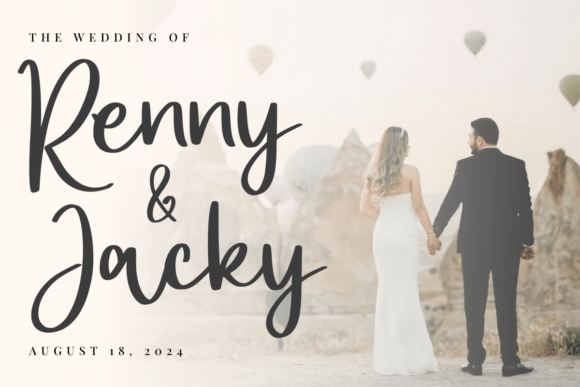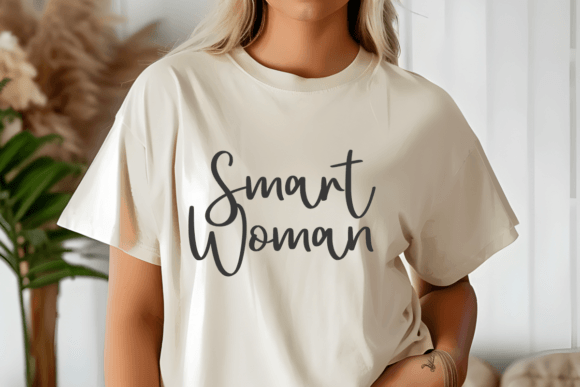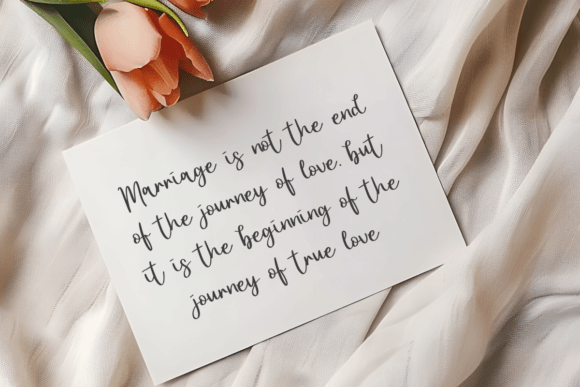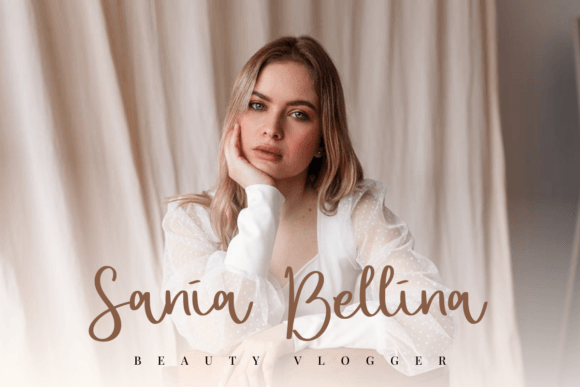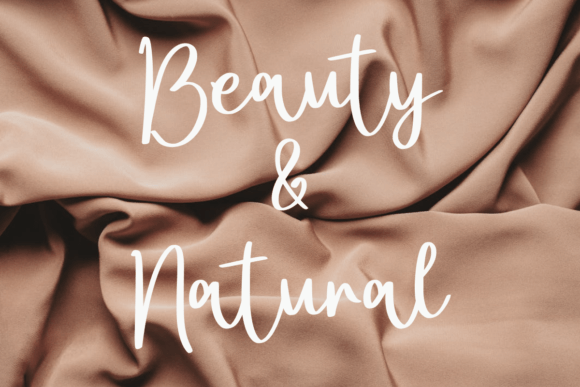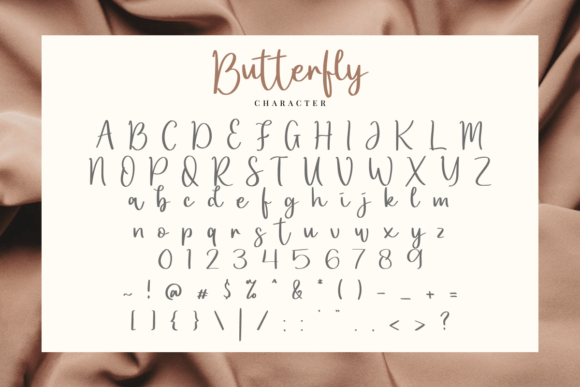
Unleashing the Beauty of Handwritten Charm
Have you ever found yourself scribbling down a heartfelt message or a special invitation, only to realize that your handwriting doesn’t quite capture the essence of the moment? That’s when the magic of typography comes to the rescue, and for many designers, the perfect solution lies in the whimsical world of handwritten fonts.
Enter the enchanting Butterfly Font, a charming script that exudes warmth and friendliness, making it the perfect companion for any design project that calls for a touch of elegance and playfulness. Whether you’re crafting wedding invitations, heartfelt cards, or simply looking to add a personal touch to your branding, the Butterfly Font is an invaluable asset for any designer seeking to convey their artistic vision with precision and charm.
Key Features of Butterfly Font
- Font Family: Butterfly Font is a unique, handwritten font that features elegant and whimsical characteristics.
- Unique Characteristics: Features a flowing, organic feel with subtle imperfections, giving it a hand-written and personal touch.
Butterfly Font Review
Overall, I think the Butterfly Font has some lovely qualities that make it a great choice for certain projects. ✨ Its flowing curves and delicate lines evoke a sense of whimsy and playfulness, perfect for children’s books, wedding invitations, or any other design that needs a touch of romance. The font’s irregularity adds a unique charm that can help break up the monotony of more traditional serif or sans-serif fonts.
One of the things that stands out about the Butterfly Font is its wide range of uses. ✨ It’s great for both display and body text, and its varying font weights make it easy to create visual hierarchies and emphasize key points. The font also works well in both print and digital formats, which is a bonus for designers who need to adapt their work across different platforms.
- ⚠️ The font’s irregularity can sometimes make it difficult to read, particularly at smaller sizes or in areas where legibility is crucial.
- ⚠️ Some characters, such as the ‘g’ and ‘q’, can be tricky to distinguish from one another due to their similar shapes.
Overall, I think the Butterfly Font is a lovely addition to any designer’s toolkit, but it’s not without its limitations. With careful use and consideration, it can be a beautiful and effective choice for a wide range of projects.
The Butterfly Font is commonly used for:
- Children’s book illustrations and text
- Decorative text and quotes
To get the most out of the Butterfly Font, try the following:
- Pair it with bold, playful colors to create a whimsical feel
- Use it in combination with other decorative fonts for a unique look
- Experiment with different font sizes and styles to